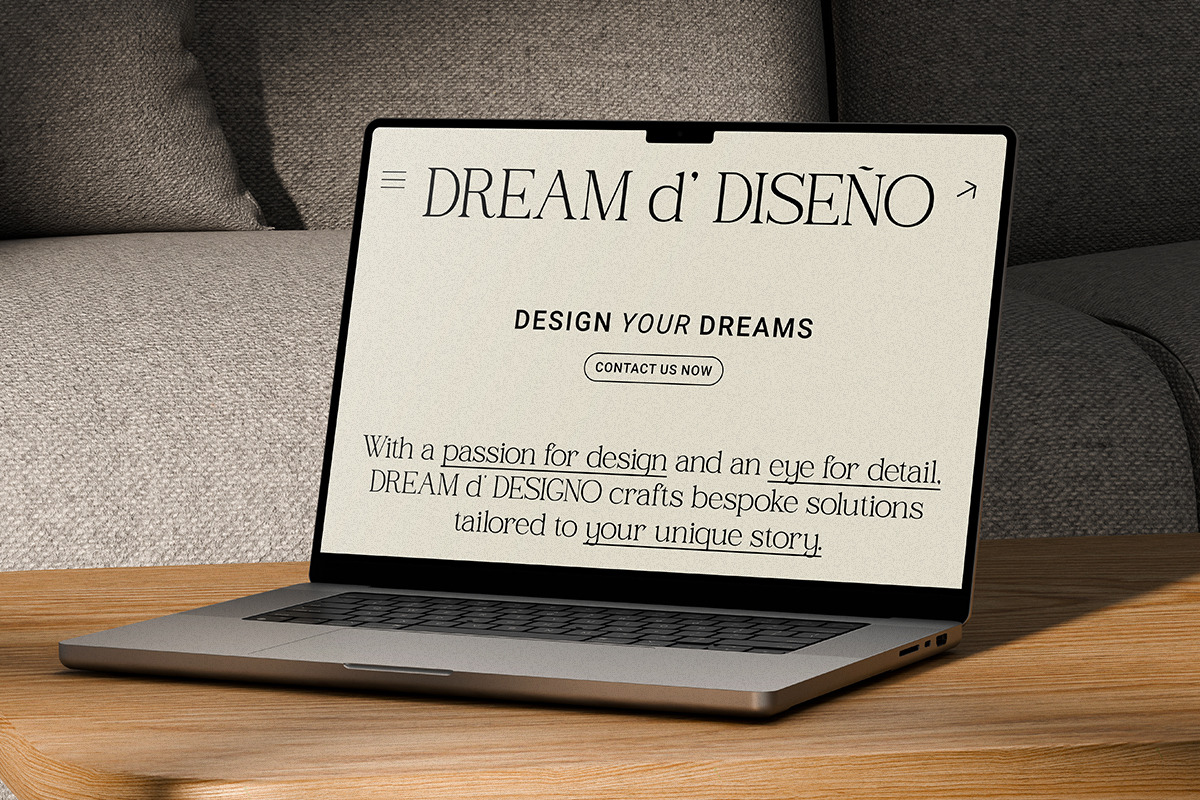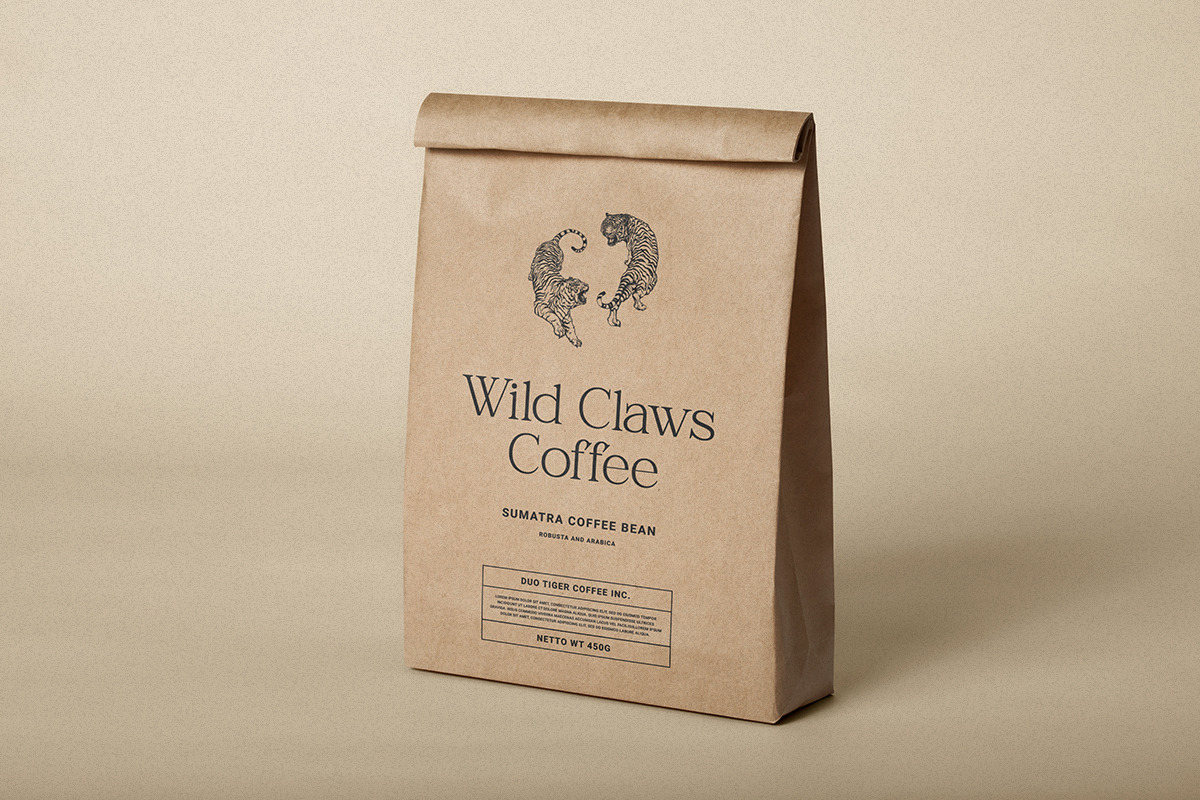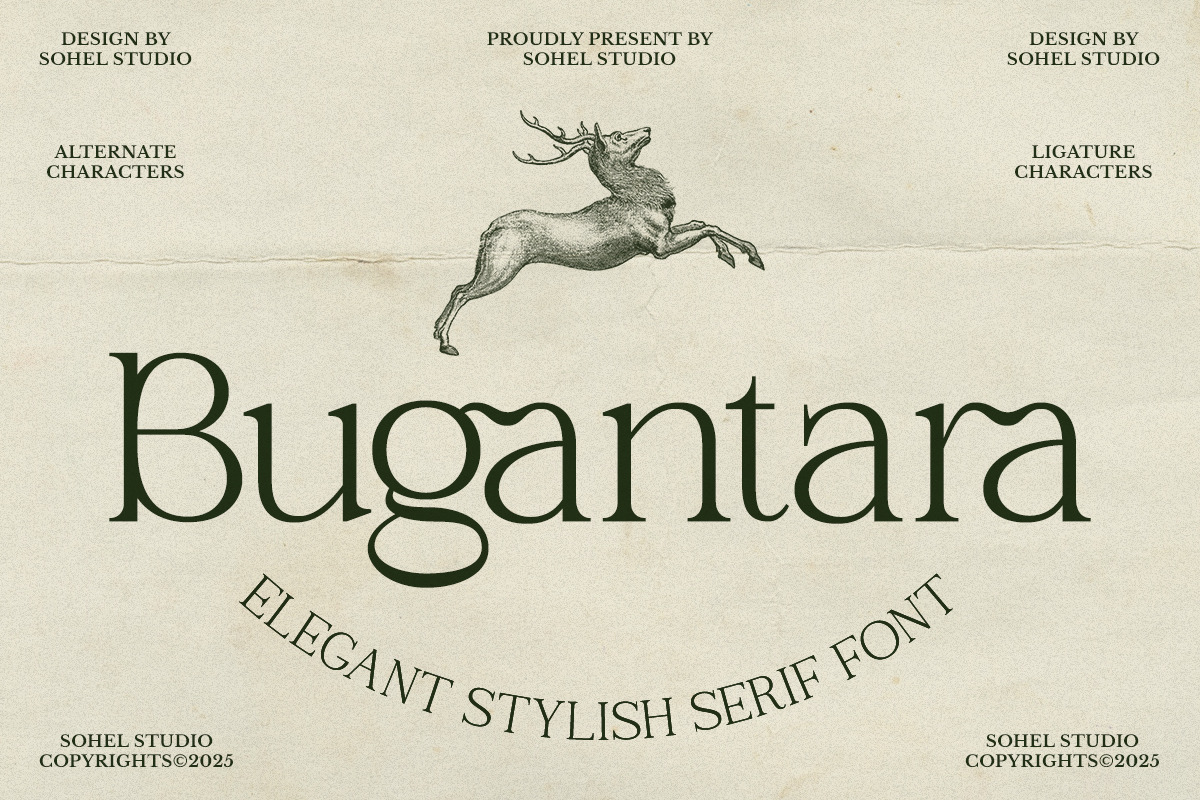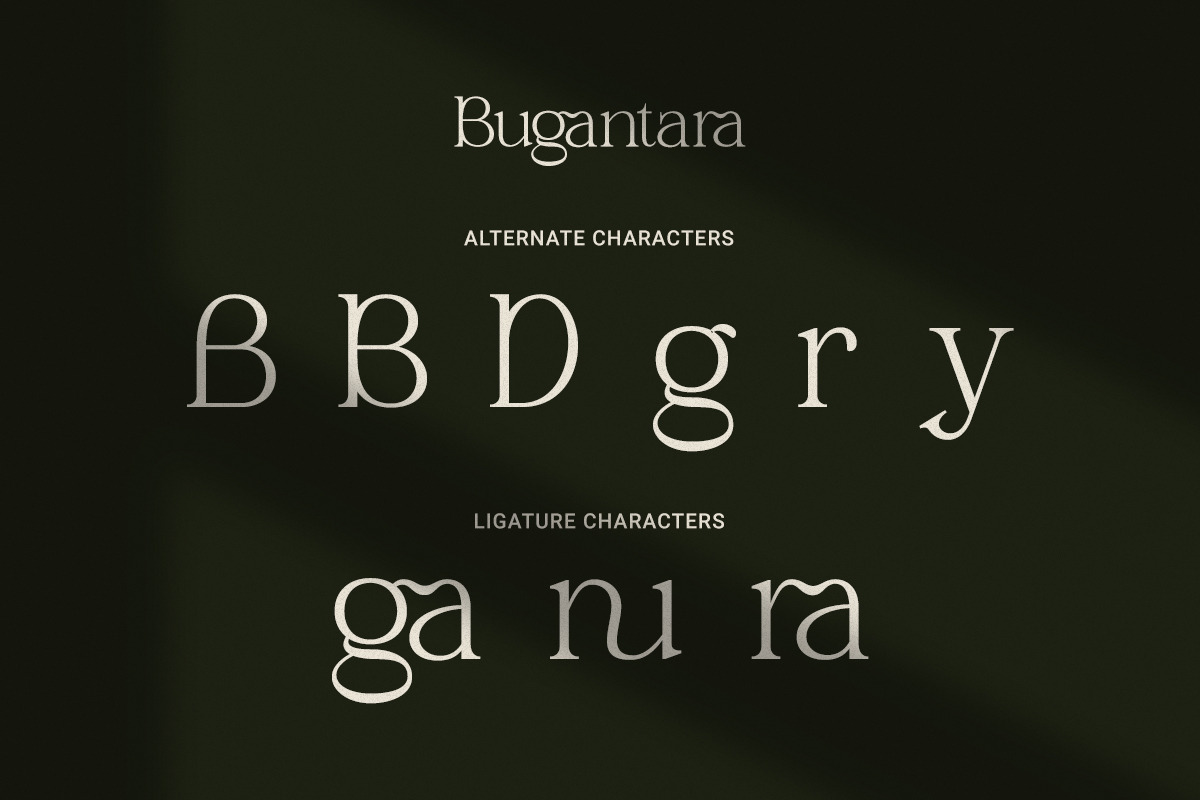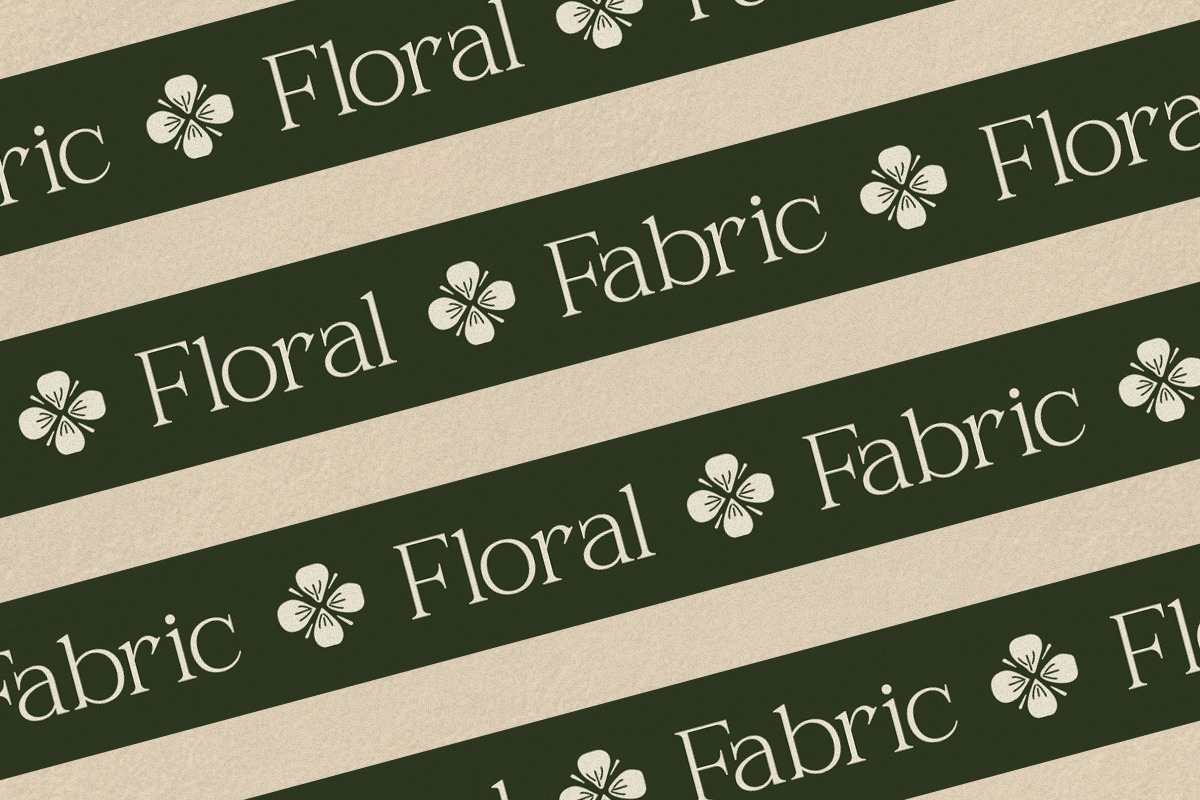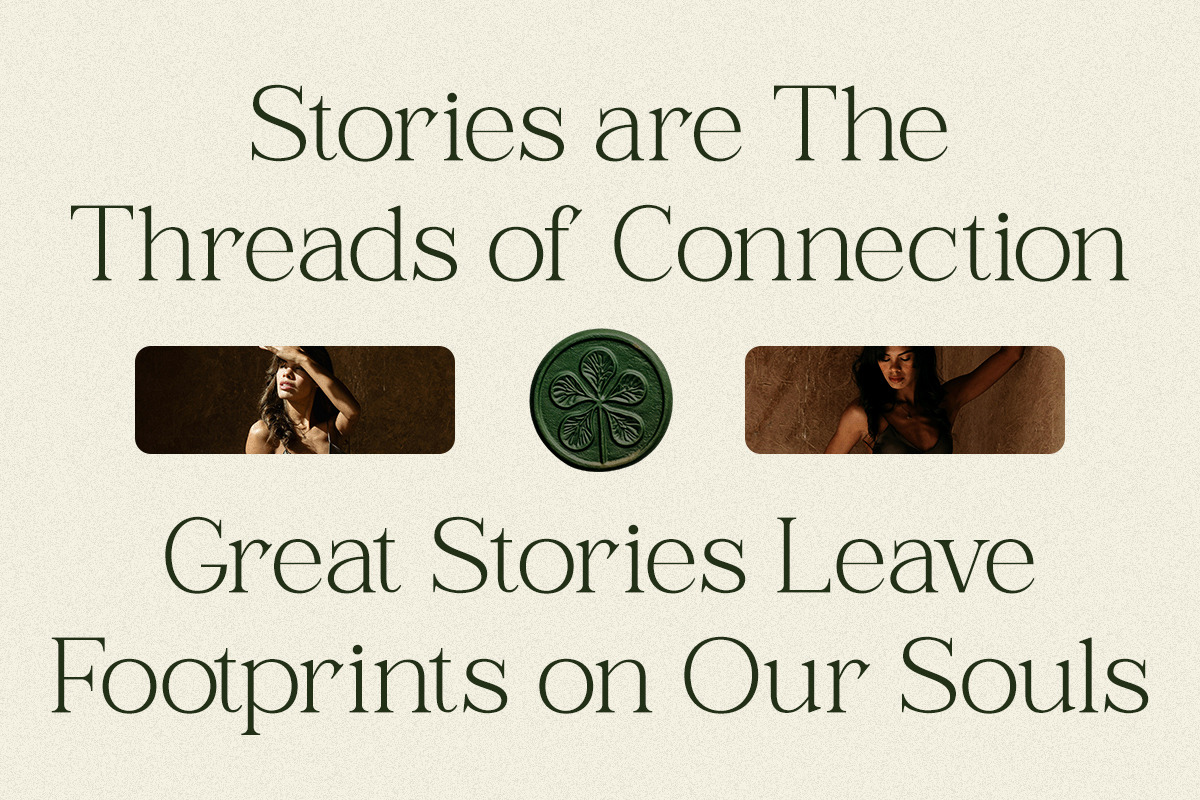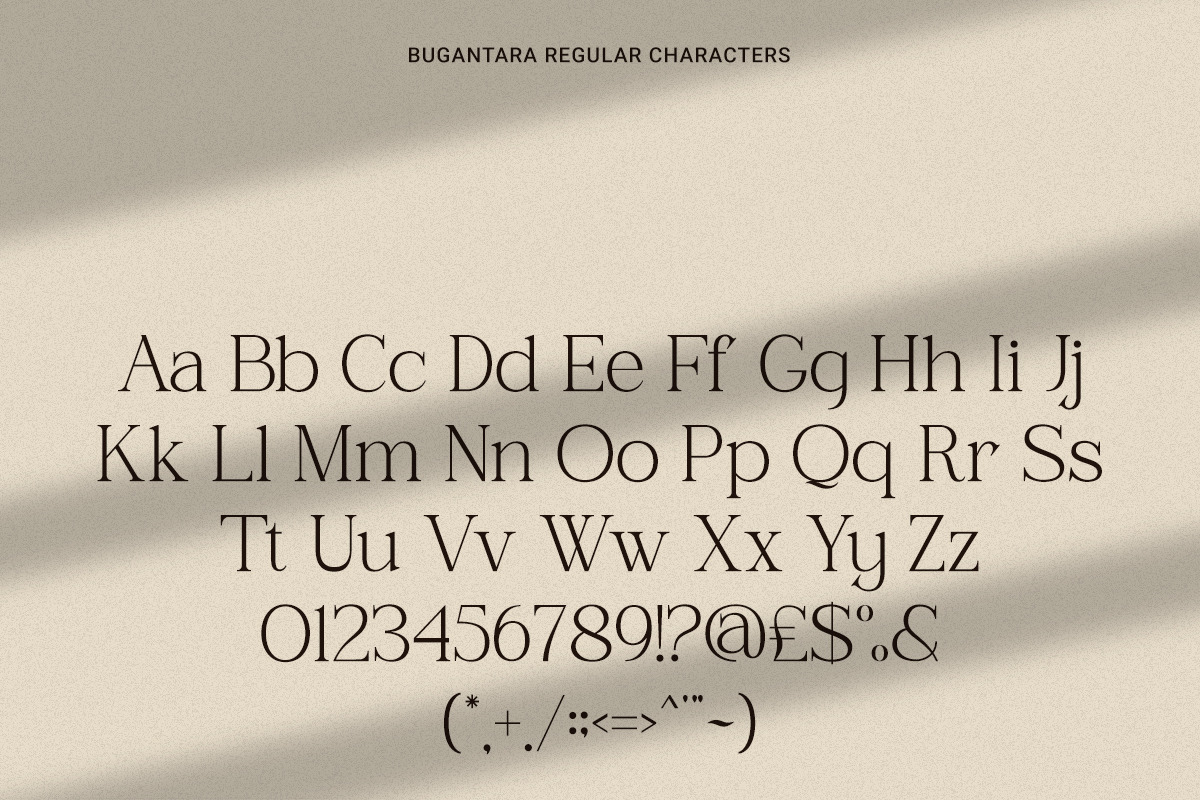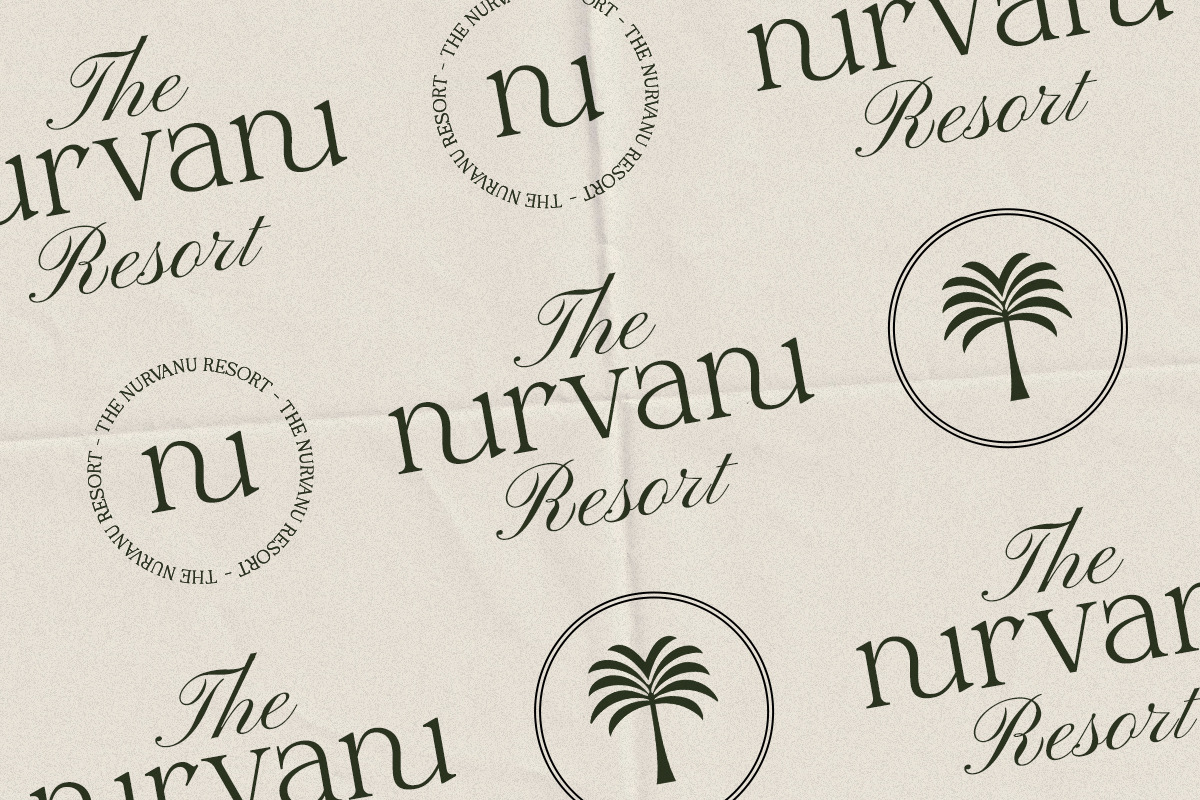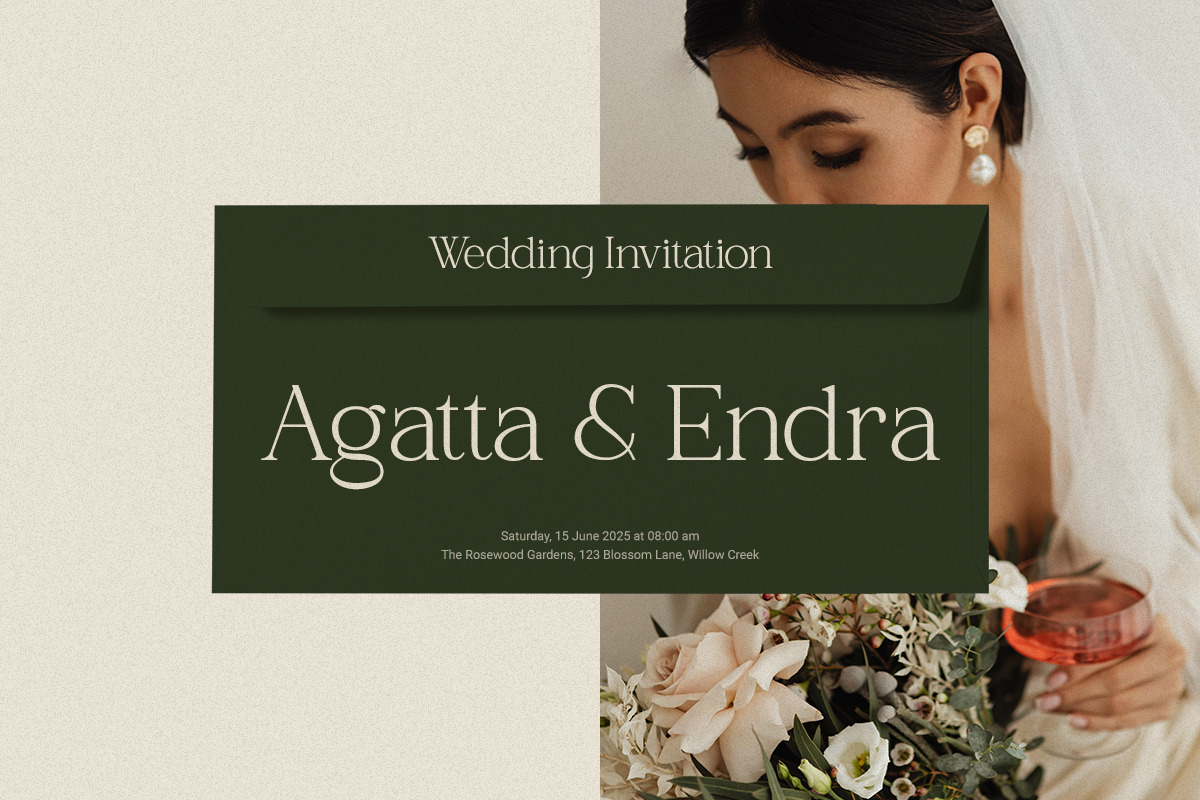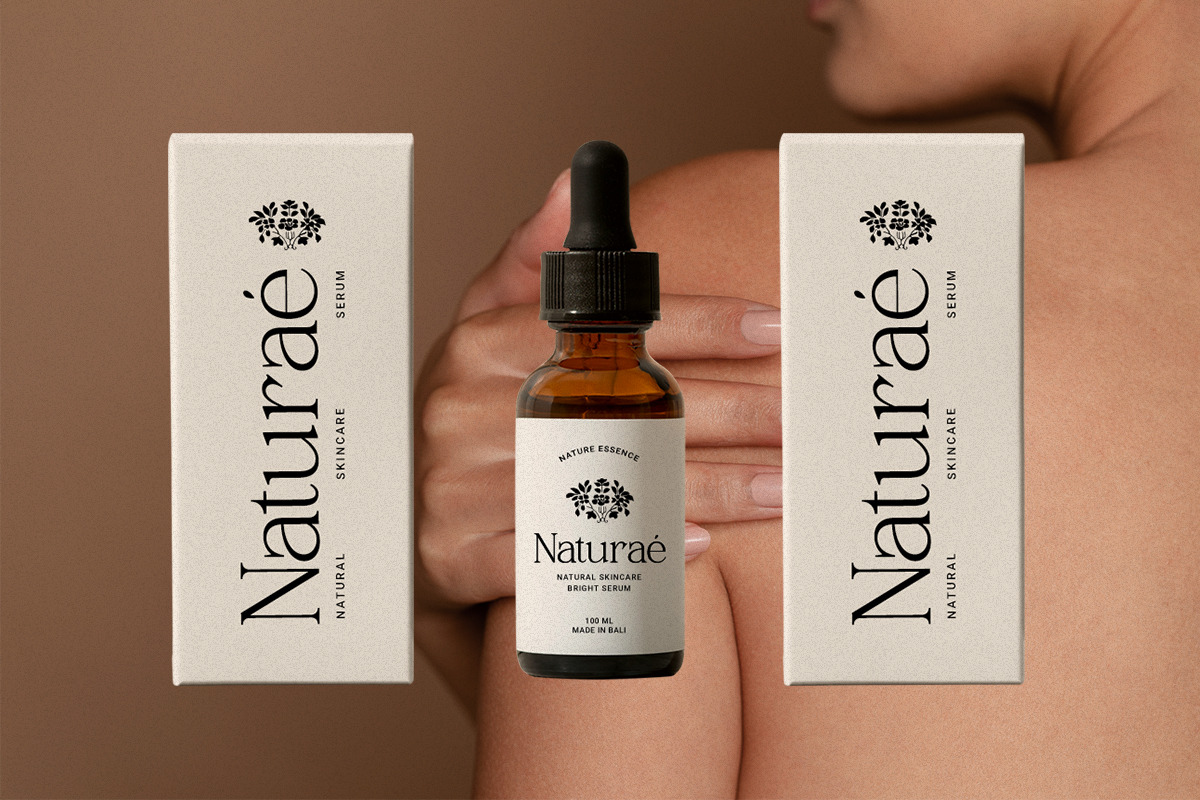
Bugantara - Elegant Thin Serif Font
Bugantara is an elegant and stylish thin serif font that embodies sophistication and timeless beauty. With its refined letterforms, delicate strokes, and carefully crafted ligatures, Bugantara is perfect for luxury branding, editorial design, high-end packaging, wedding invitations, and more. This font blends classic aesthetics with modern elegance, making it an ideal choice for designers seeking a premium and distinguished typeface. Elevate your designs with the graceful and artistic presence of Bugantara.
- Elegant Thin Serif Style: Adds a touch of sophistication to any project.
- Unique Alternates: Provides creative flexibility and uniqueness.
- Versatile Use: Ideal for branding, invitations, magazines, logos, and more.
- High-End Aesthetic: Perfect for luxury and refined design projects.
- Full Set of Characters: Uppercase, lowercase, numerals, punctuation, and symbols.
- Unique Alternates: For creating distinctive and personalized designs.
- Multilingual Support: Includes characters for multiple languages.
- Bonus Glyphs: Additional decorative elements to enhance your designs.